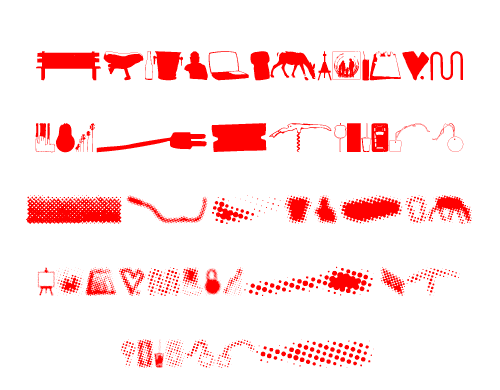
Love Letters, Aine Coughlan.
The typeface Love Letters references the things in life
that make us feel connected. The simple glyphs range in objects that
connote pleasure and pain. The individuality of each mark signifies
the ways in which we seek to have love in our lives.